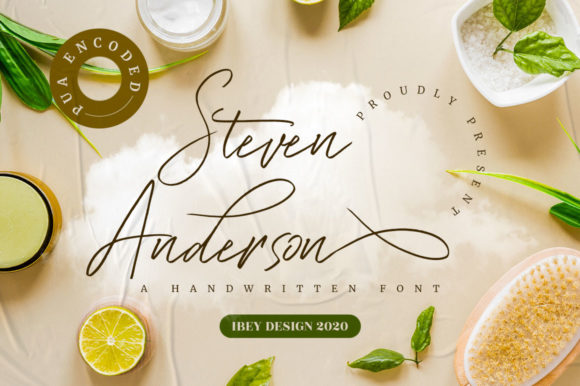
Indulge in the exquisite charm of Steven Anderson Font, a contemporary masterpiece that weaves magic upon your digital creations. This elegant script typeface, meticulously crafted by ibeydesign, whispers timeless sophistication and exquisite beauty into every letterform.
Unleash your imagination and embrace the boundless possibilities that await with Steven Anderson Font. Its graceful curves and effortless flow ignite a captivating allure, drawing the eyes in and leaving an indelible impression. Elevate your designs with its refined strokes, each one a testament to the artistry and passion that went into its creation.
Whether you're crafting enchanting invitations, whimsical branding materials, or heartfelt social media posts, Steven Anderson Font becomes a vibrant canvas for your words. Its captivating essence adds a touch of understated elegance to every project, making it the perfect choice for those who seek to leave a lasting mark.
Step into the world of Steven Anderson Font and let your creativity soar. Its timeless appeal ensures that your designs will stand the test of time, inspiring awe and admiration in all who lay eyes upon them. Embrace the luxury of handwritten beauty and allow Steven Anderson Font to transform your digital masterpieces into true works of art.